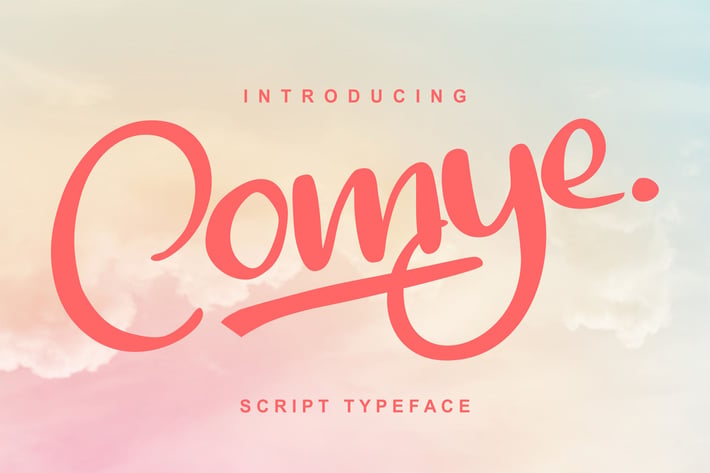
Comye | Script Typeface Font
Comye | Script Typeface Font with a calligraphy style, So beautiful on invitation like greeting cards, branding materials, business cards, quotes, posters, and more!